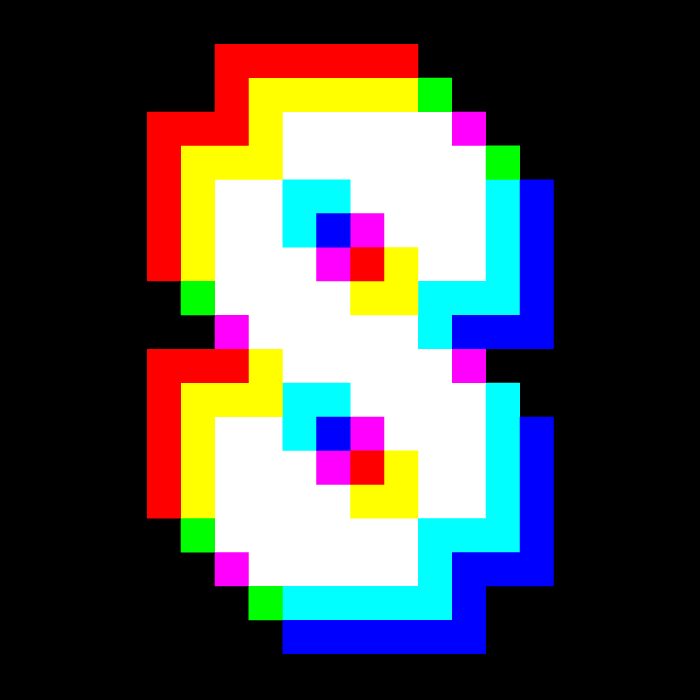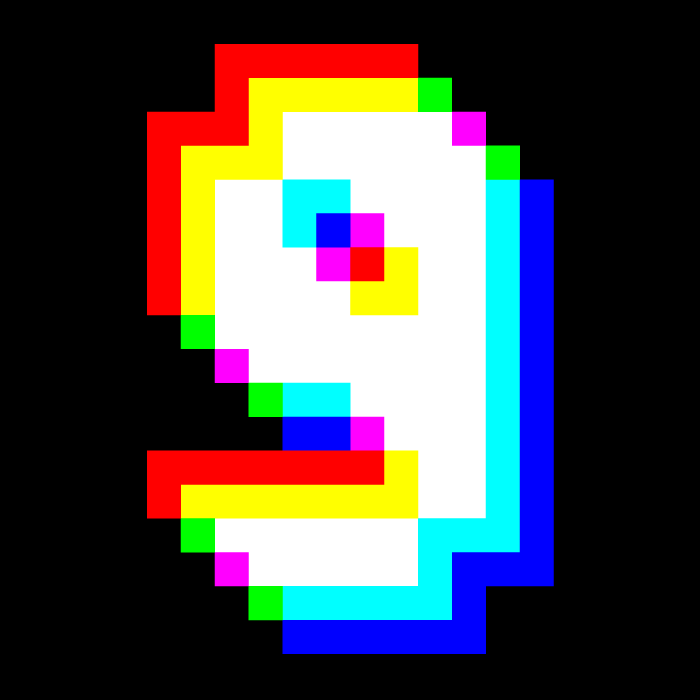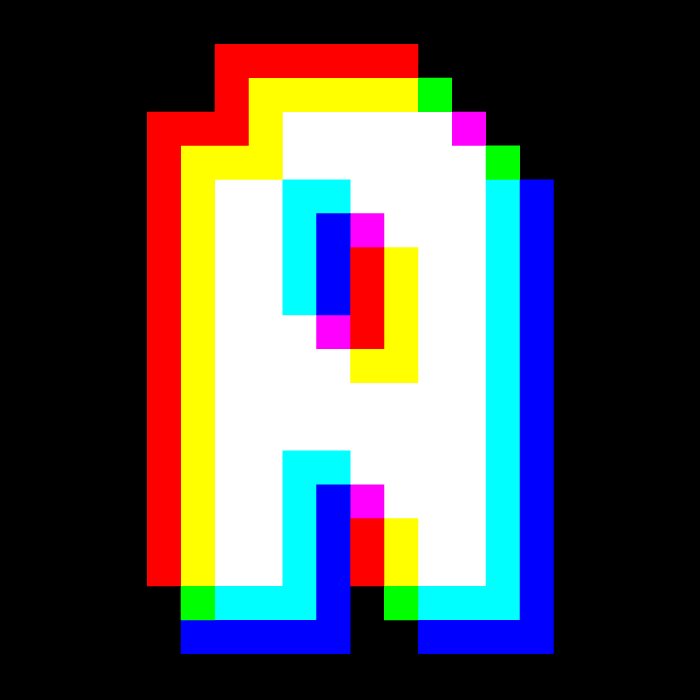
Cool idea! Despite the complex design, it have good readability.
The perfect companion for offstruct. I like it even more than the first one. Congrats for the pair!
Congratulations! FontStruct Staff have deemed your FontStruction worthy of special mention. “offstruct rgb” is now a Top Pick.
Congrats on this special mention, compañero (especially well deserved, IMHO)!
You're welcome. With the black background the font rises to our eyes in a magnificent way. ?❤️
Cool! looks like the font that in horror games